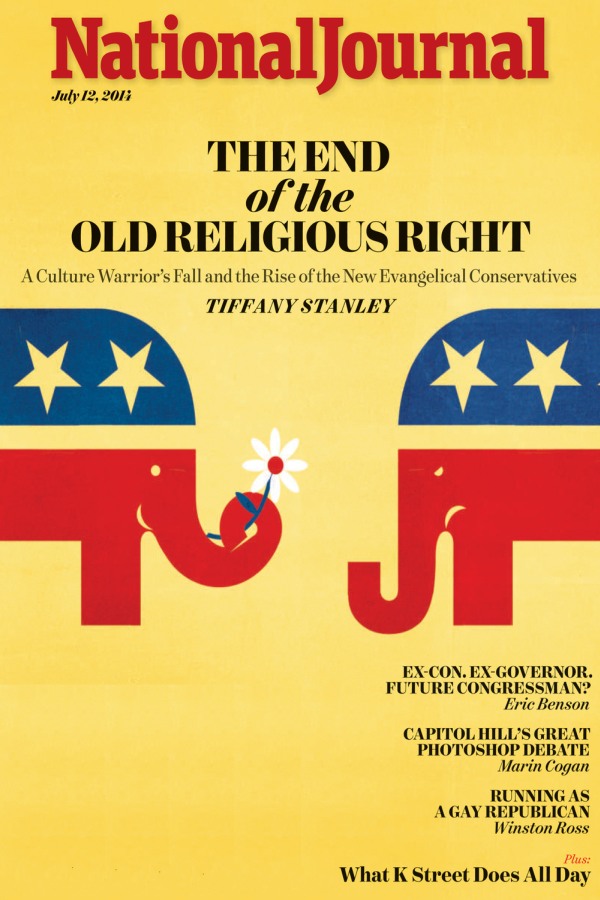
National Journal Font
BookNational Journal is a digital and print magazine that covers politics and policy in the United States. It provides in-depth analysis, insights, and intelligence on issues ranging from healthcare to national security.
FF Unit Slab Black is the font used for the magazine nameplate. It's a slab font family of 14 weights created by Christian Schwartz and Kris Sowersby, designed as a counterpart to its successful sans-serif FF Unit. More details can be found here.